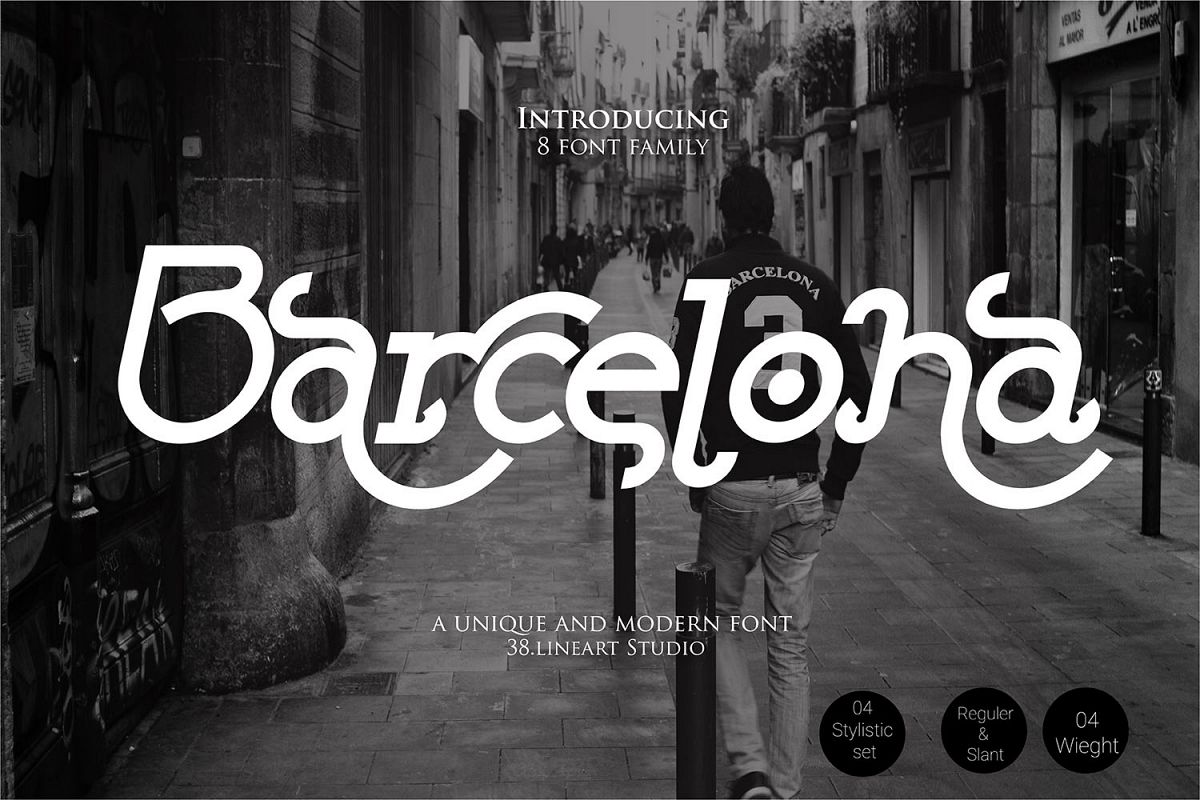
Barcelona
Barcelona is a
font with new style of geometric san family. engaging character. Inviting and
versatile,  make it great for headlines,
quotes and text. Its open type font with stylistic set. You can play the
stylistic set (ss1-ss5) for logotype or branding product.
Barcelona is
unique, with 5 stylistic set, you can make it a modern, minimalist, ellegant or
vintage style. 8 family font make it perfect to root your design, light, thin,
medium and bold. All of them has slant type.
Uppercase and lower case
5 stylistic set for lower case
2 stylistic set fot uppercase
Numeral and punctuation
Multilanguage support